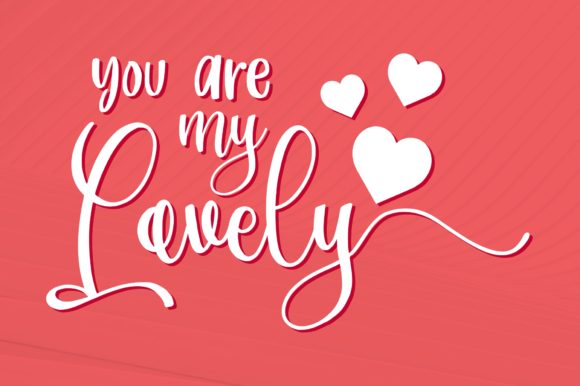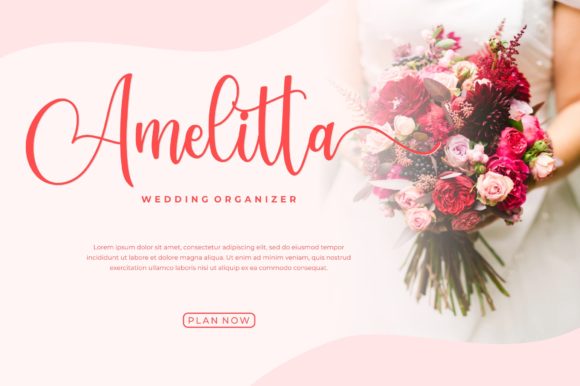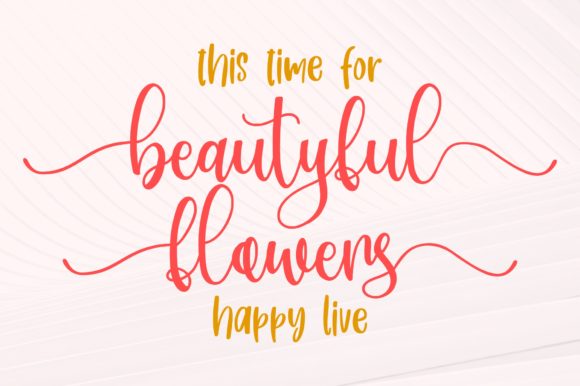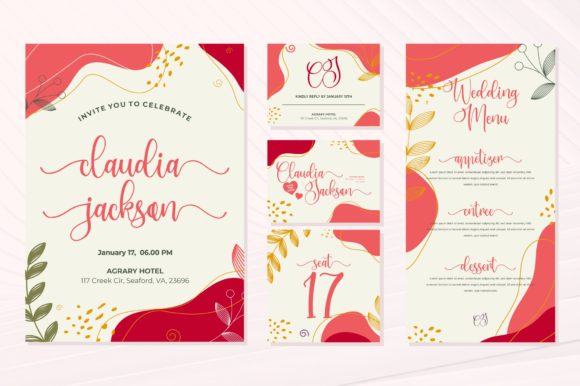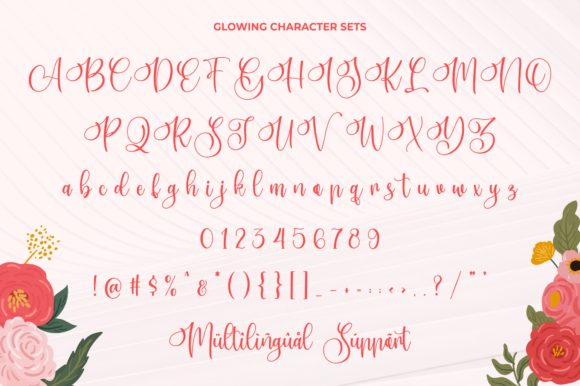
Glowing Font
About Glowing Font
Glowing is a sweet, soft hand-lettered handwritten font. The playful rounded characters make it the perfect font for creating stunning art. Fall in love with its authentic feel and use it to create gorgeous wedding invitations, beautiful stationary art, eye-catching social media posts, and cute greeting cards.